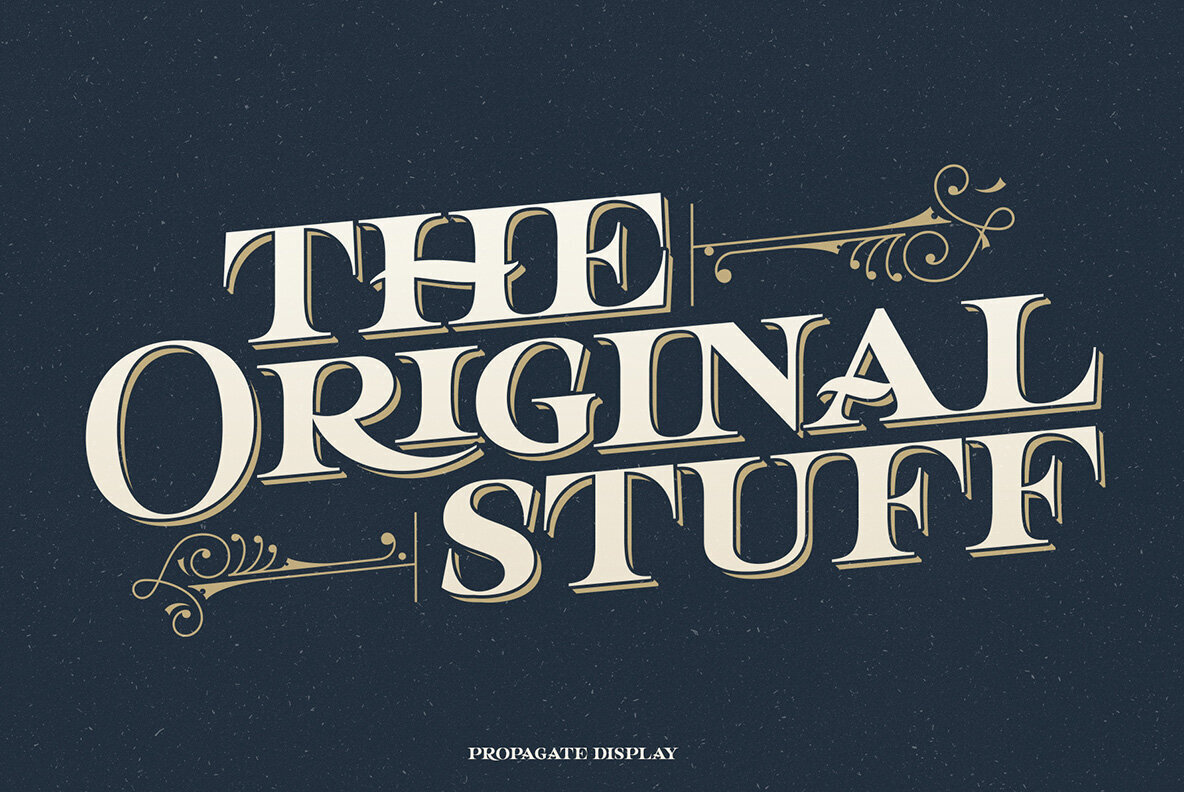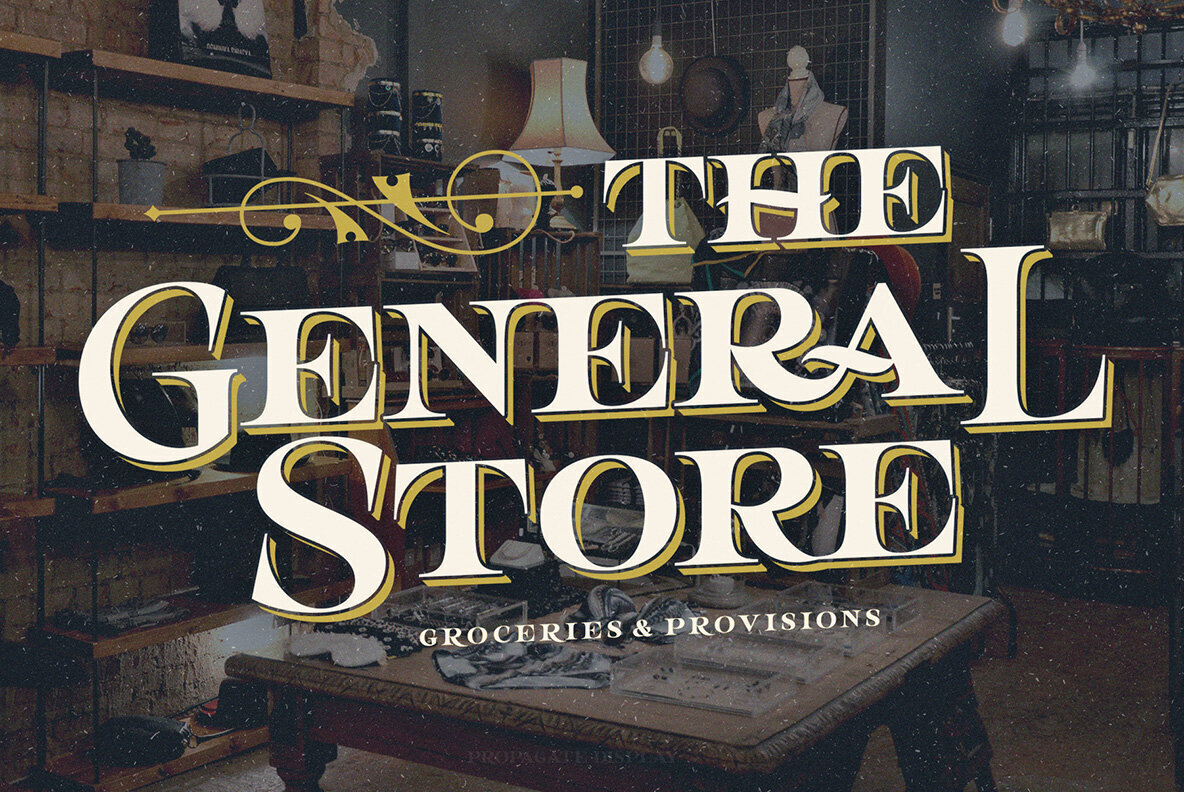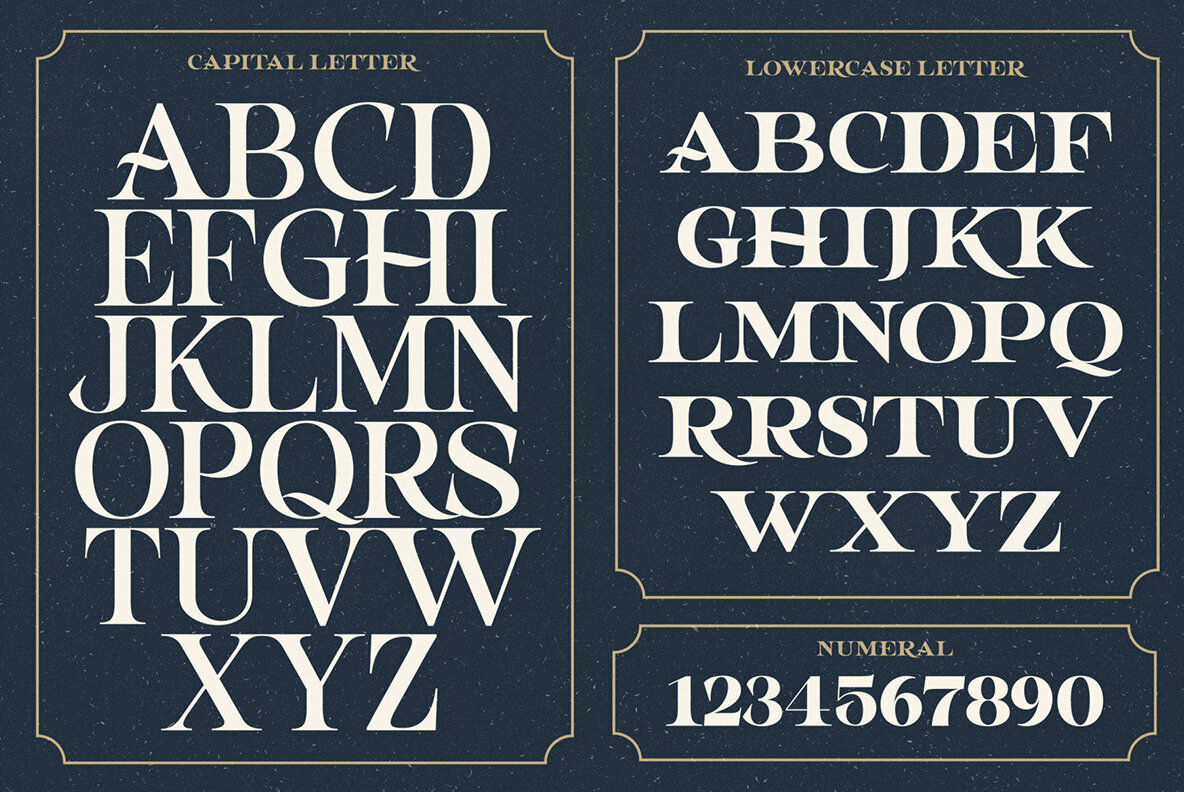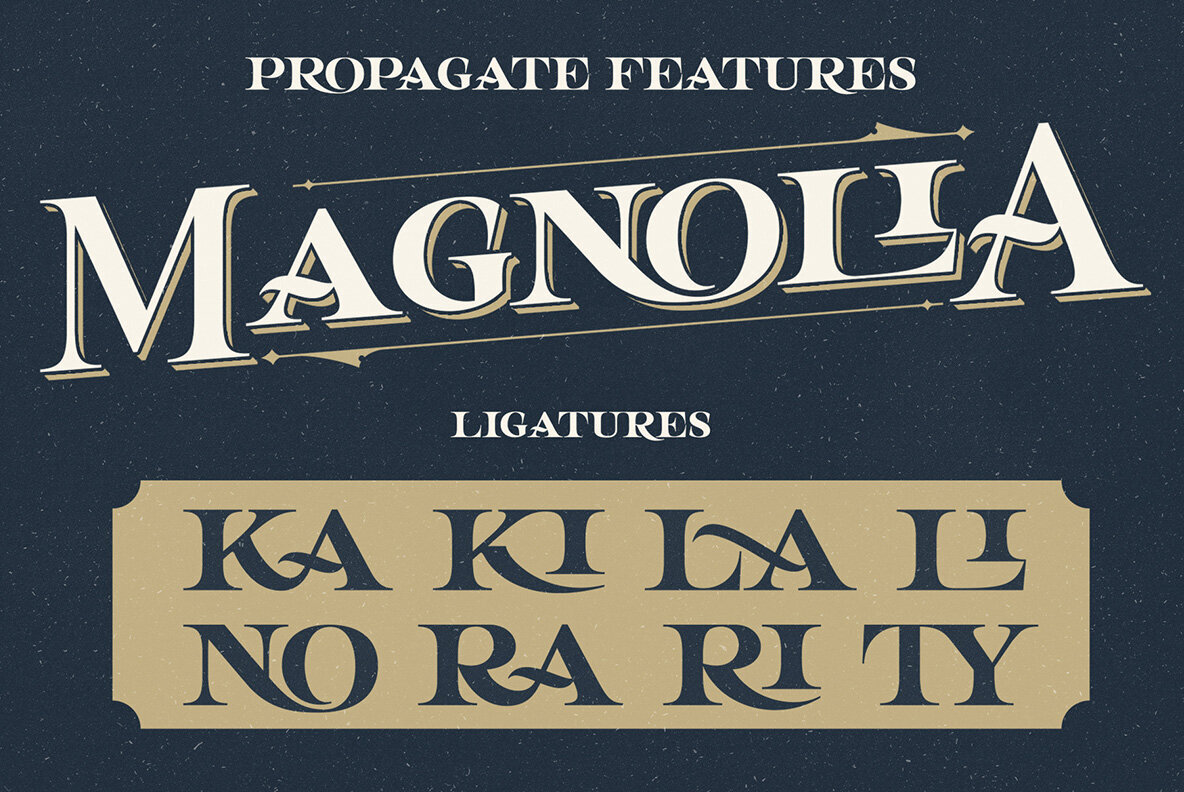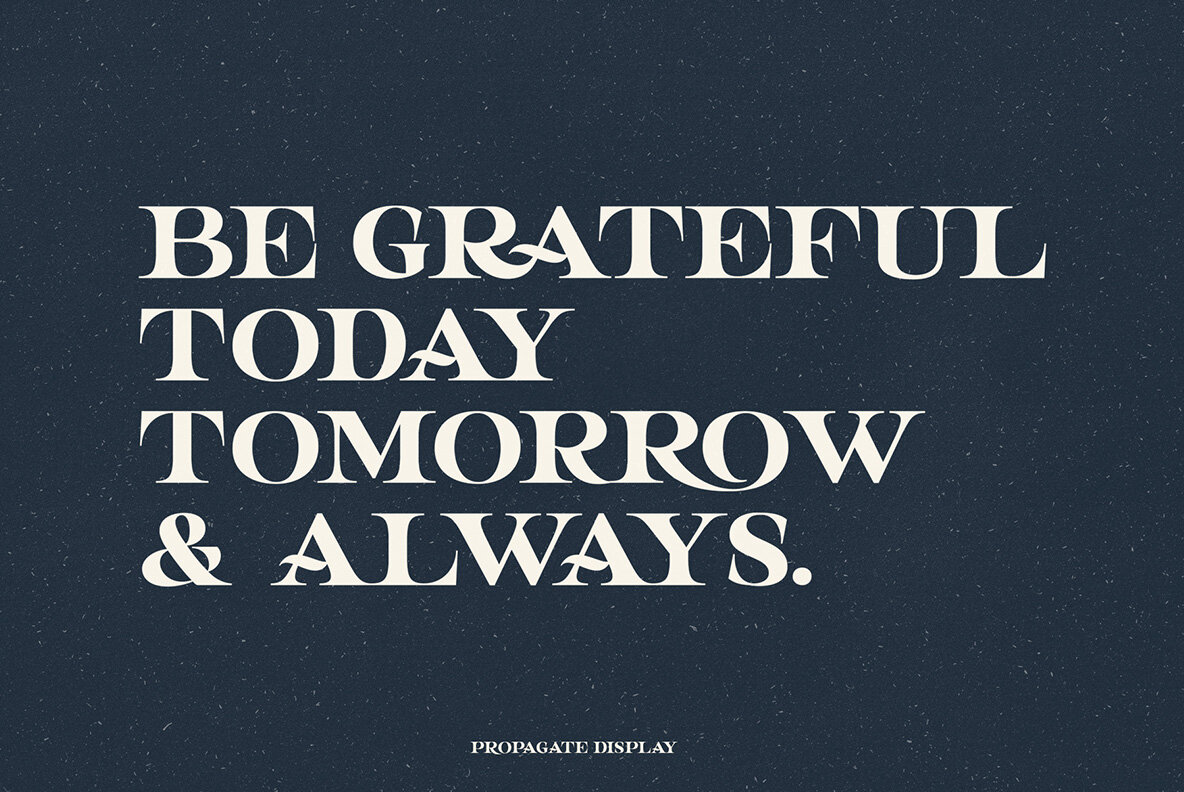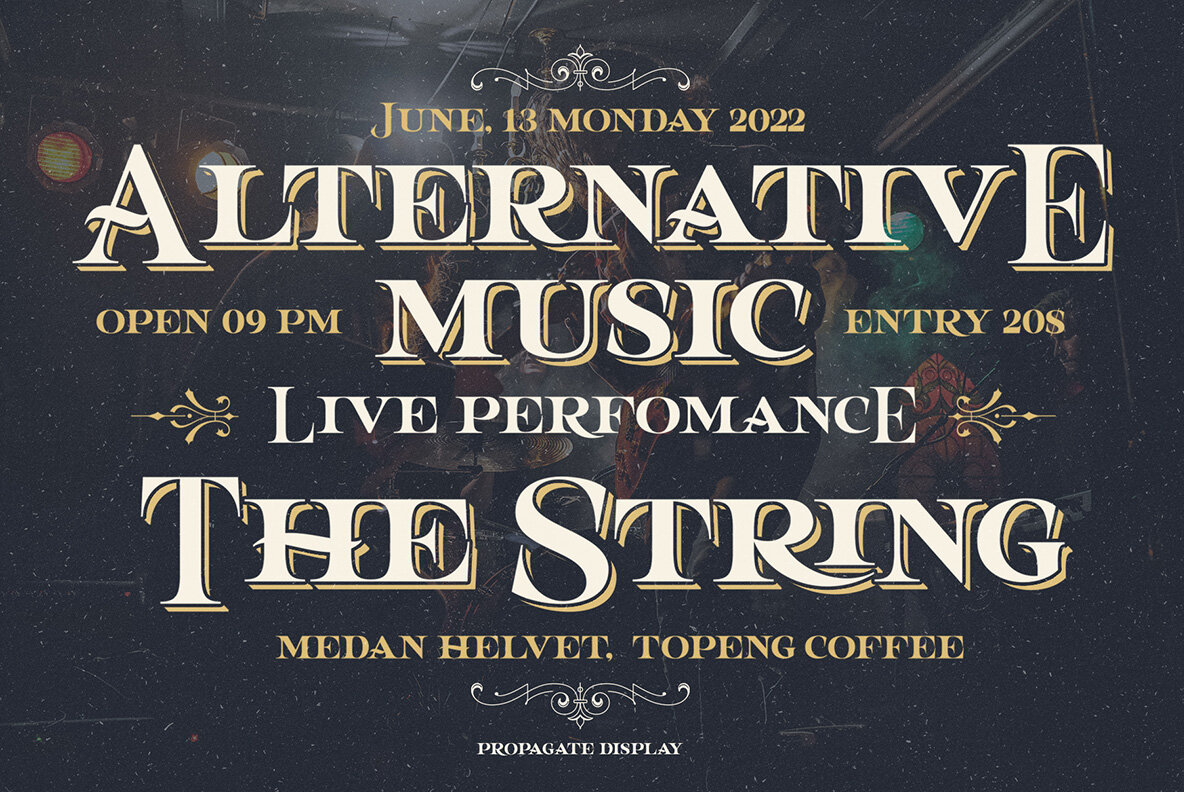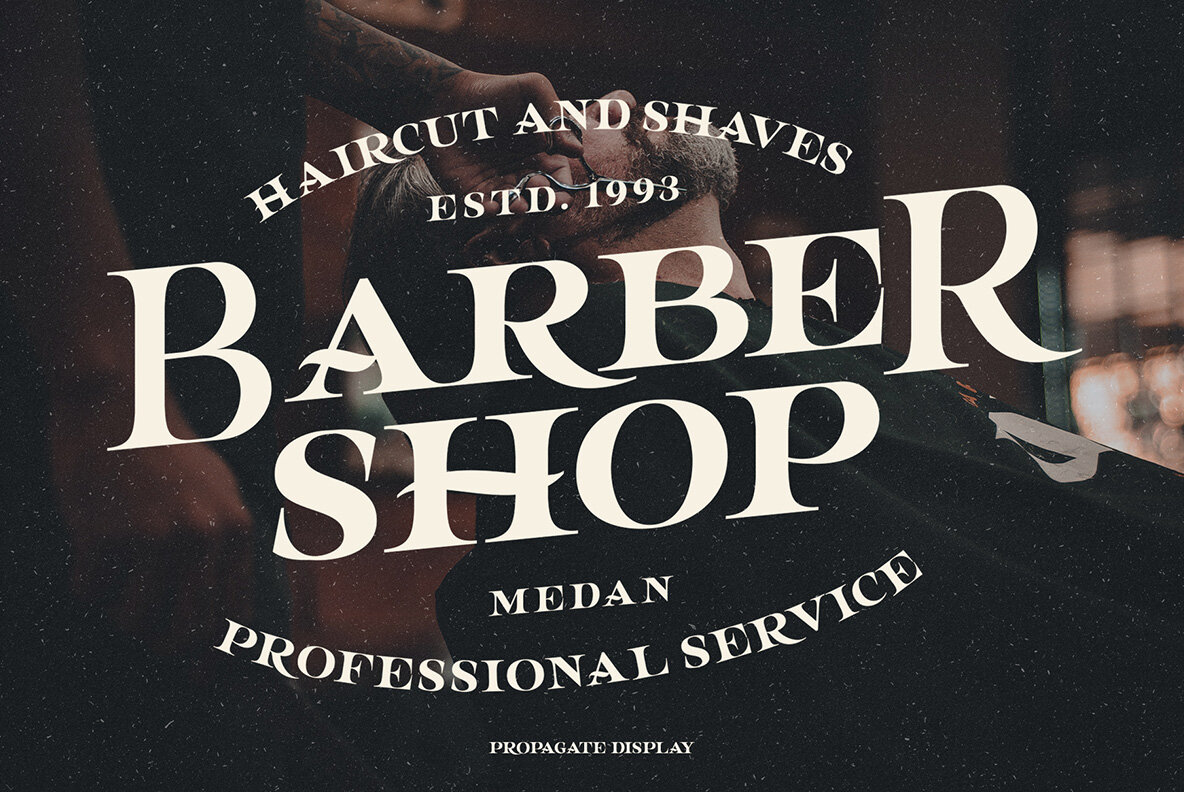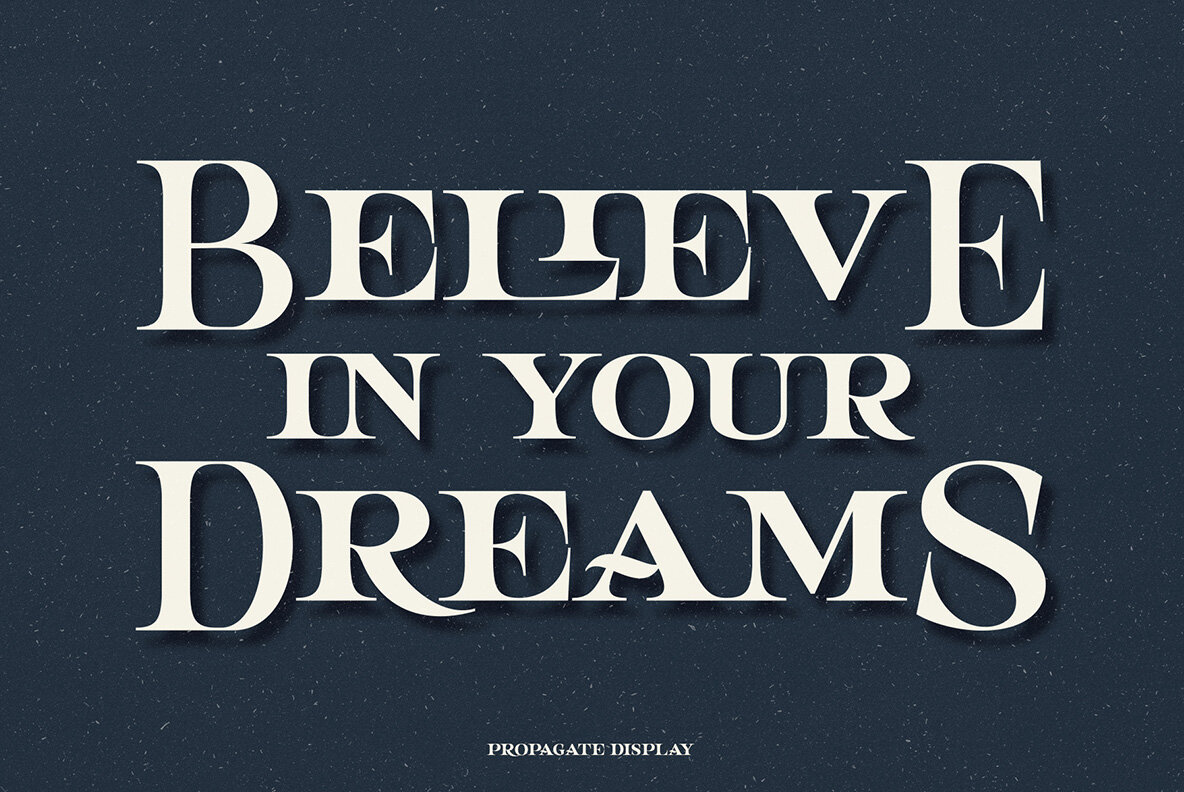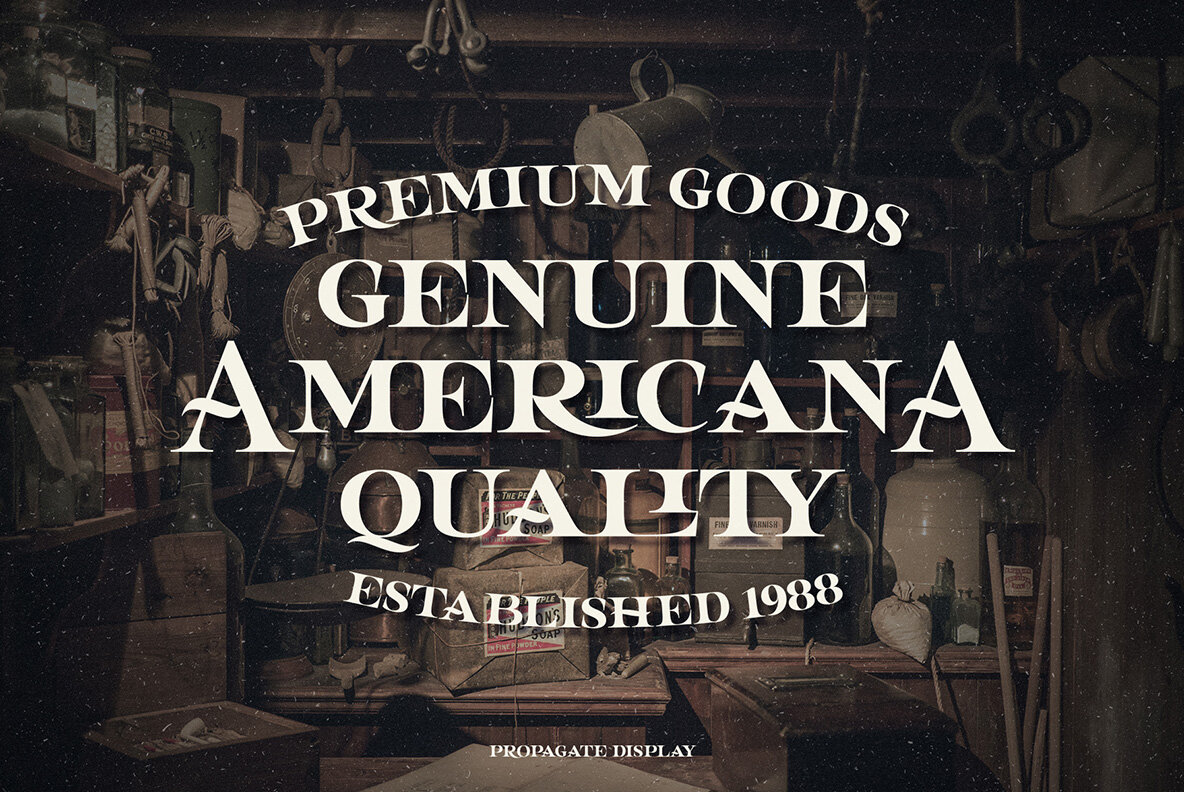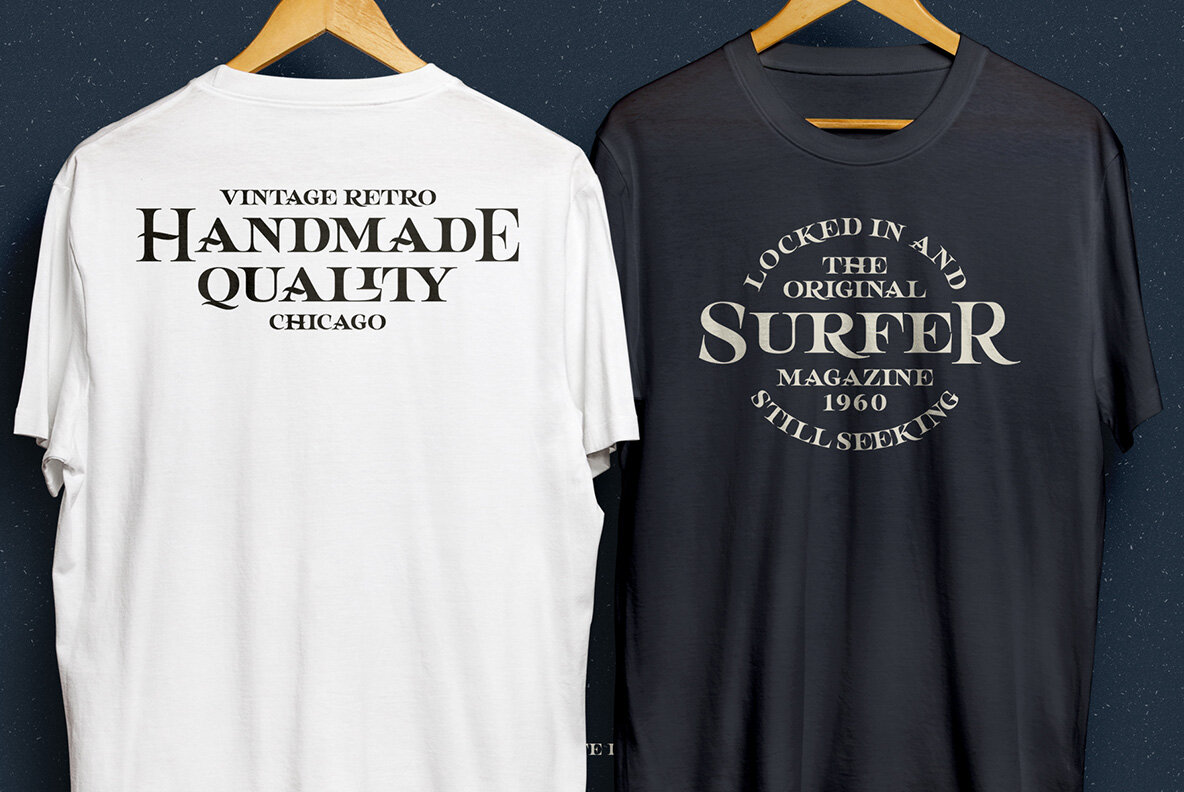
Propagate 1
Propagate is a font display is made by hand, inspired by classic posters.
Propagate comes with uppercase, lowercase, numerals, punctuations and so many variations on each characters include opentype alternates, common ligatures and also additional swash to let you customise your designs. Perfect to use for Logotype, Letterhead, Poster, Apparel Design, Label and etc.